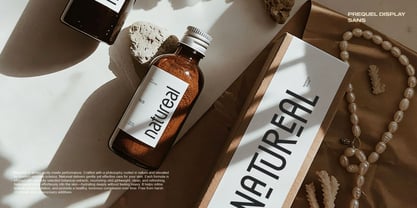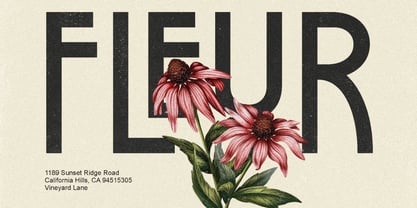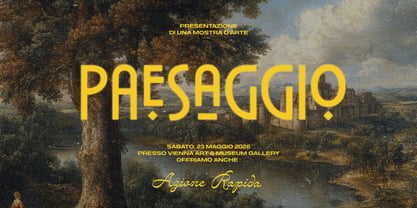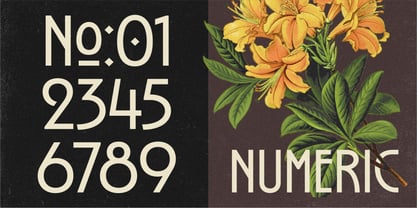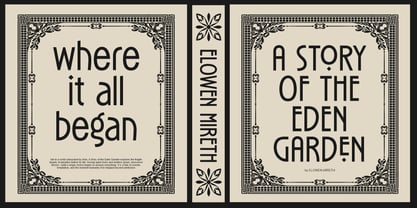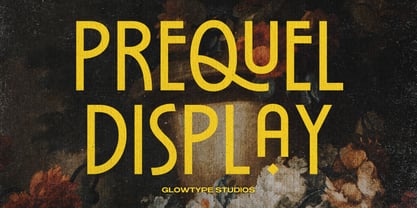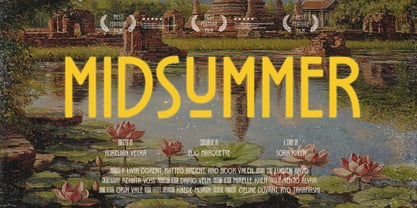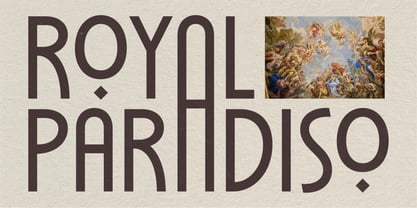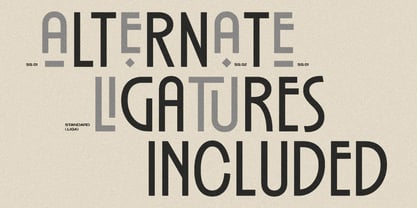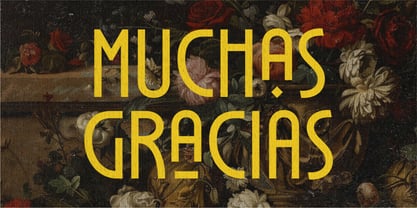
Prequel
by Glowtype
Prequel is a contemporary sans-serif typeface defined by its refined minimalism and soft geometric clarity. Its construction balances clean vertical stress with subtly rounded terminals, creating a tone that feels both modern and approachable.
The letterforms are carefully proportioned to maintain visual harmony across uppercase and lowercase, while distinctive details such as the gentle curvature in the lowercase set and the open, breathable spacing enhance legibility and rhythm.
Designed with versatility in mind, Prequel performs seamlessly across display and text applications, making it well-suited for editorial design, branding systems, and digital interfaces. Its quiet sophistication and controlled expressiveness position it as a timeless tool for designers seeking clarity with character.